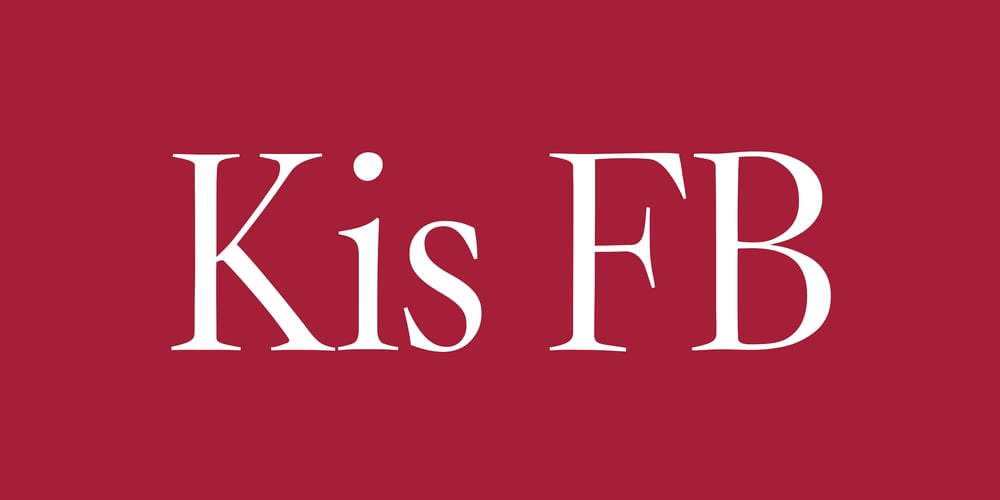
Kis FB Font Family was designed by David Berlow and published by Font Bureau. Kis FB contains 24 styles and family package options. Transylvanian punchcutter Nicholas Kis cut a leading figure in 18th century Amsterdam. Series of his matrices survived at the Ehrhardt typefoundry. From these Chauncey Griffith at Mergenthaler cut the Janson series in 1936. Morison at Monotype followed with Ehrhardt. David Berlow takes full advantage of current techniques to produce these splendid and adventurous display series to complement one of the great oldstyle texts; FB 2007